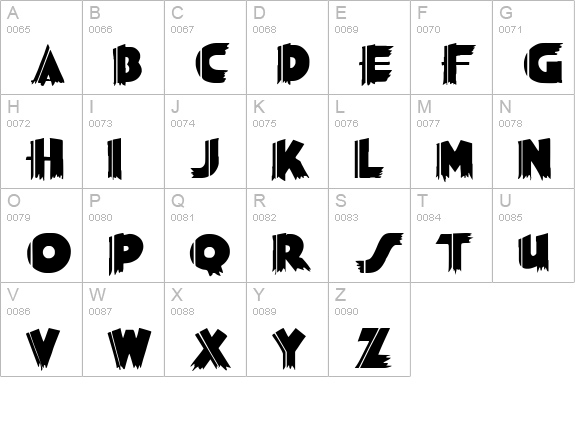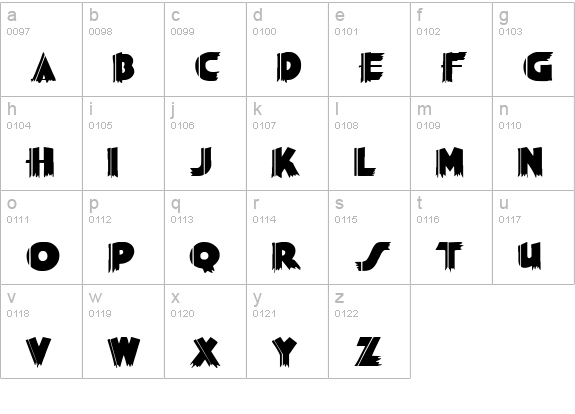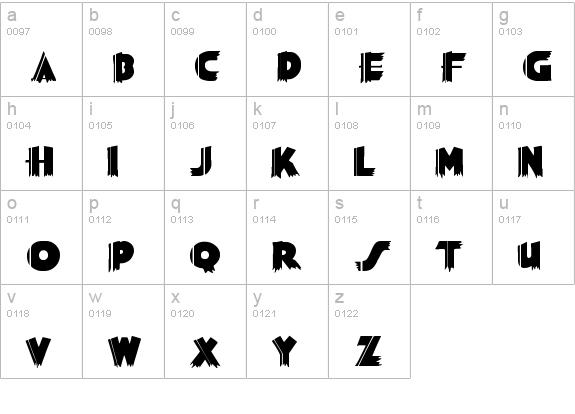
Grauman Font Details
Introducing Grauman font, a stylish and modern typeface perfect for a wide range of design projects. With its sleek lines and elegant curves, Grauman exudes sophistication and charm. This versatile font is ideal for branding, advertising, packaging, and much more. The best part? Grauman font is available for free download at FontsMarket.com, making it accessible to designers and creatives everywhere. Whether you're working on a professional project or a personal endeavor, Grauman font is sure to add a touch of class and flair to your designs. So don't hesitate to grab your free copy today and start creating stunning visuals with Grauman font!